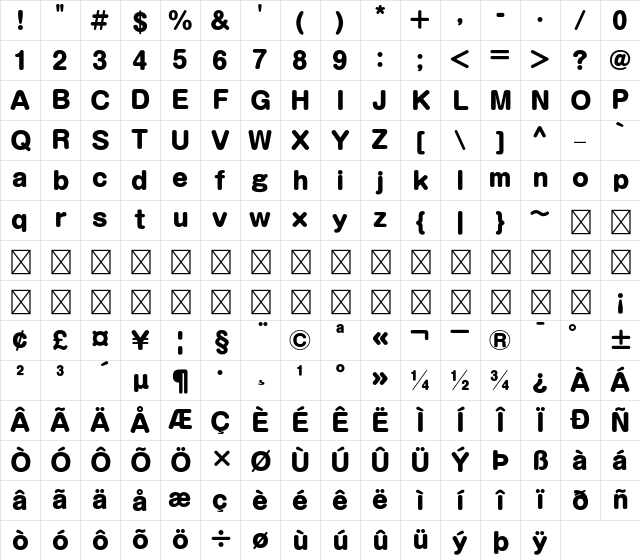
A-OTF Shin Maru Go Pr6N H
Style: H
Design Context for A-OTF Shin Maru Go Pr6N
A-OTF Shin Maru Go Pr6N is a composed and adaptable typeface that performs quietly and consistently across a wide range of design contexts.